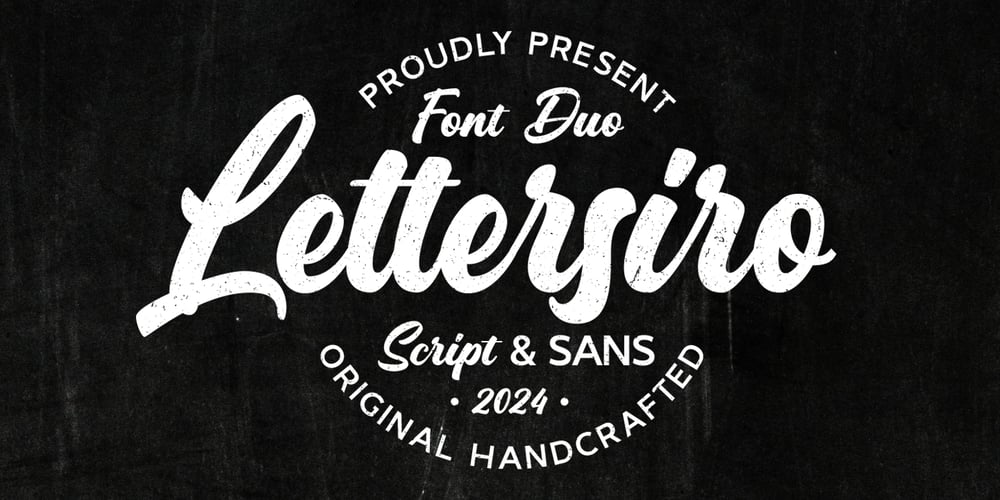
Lettersiro Logotype
Lettersiro Logotype font
Lettersiro Logotype Font Family was designed by Muhammad Sirojuddin and published by Lettersiro. Lettersiro Logotype contains 2 styles and family package options. Lettersiro Logotype contain script font and sans font. This let you create amazing logo, design, and use it for advertising for your company , use it for product/print and many others. It save your time because the script font is unique and eye cathing, and well paired with sans font